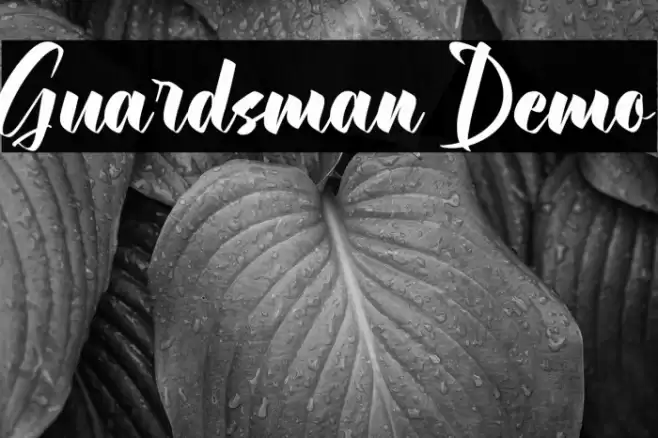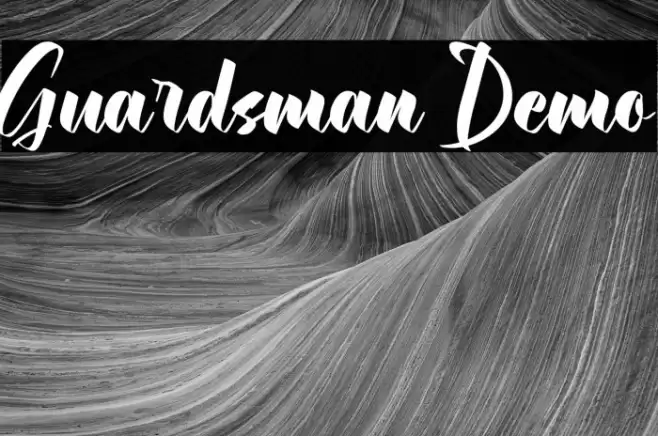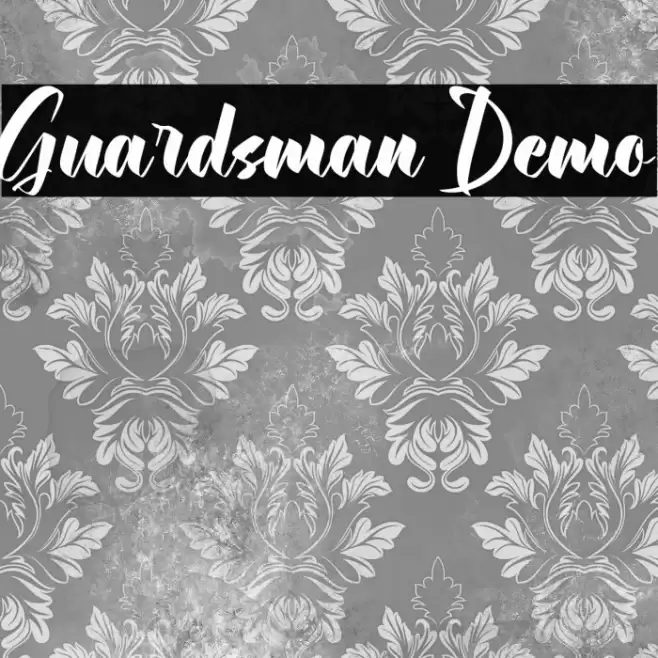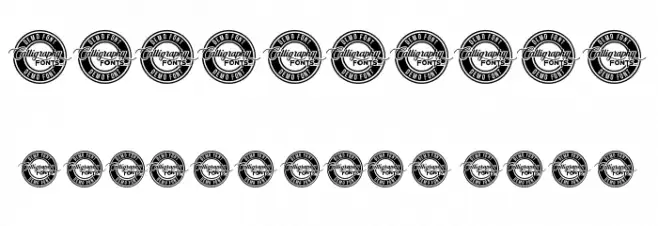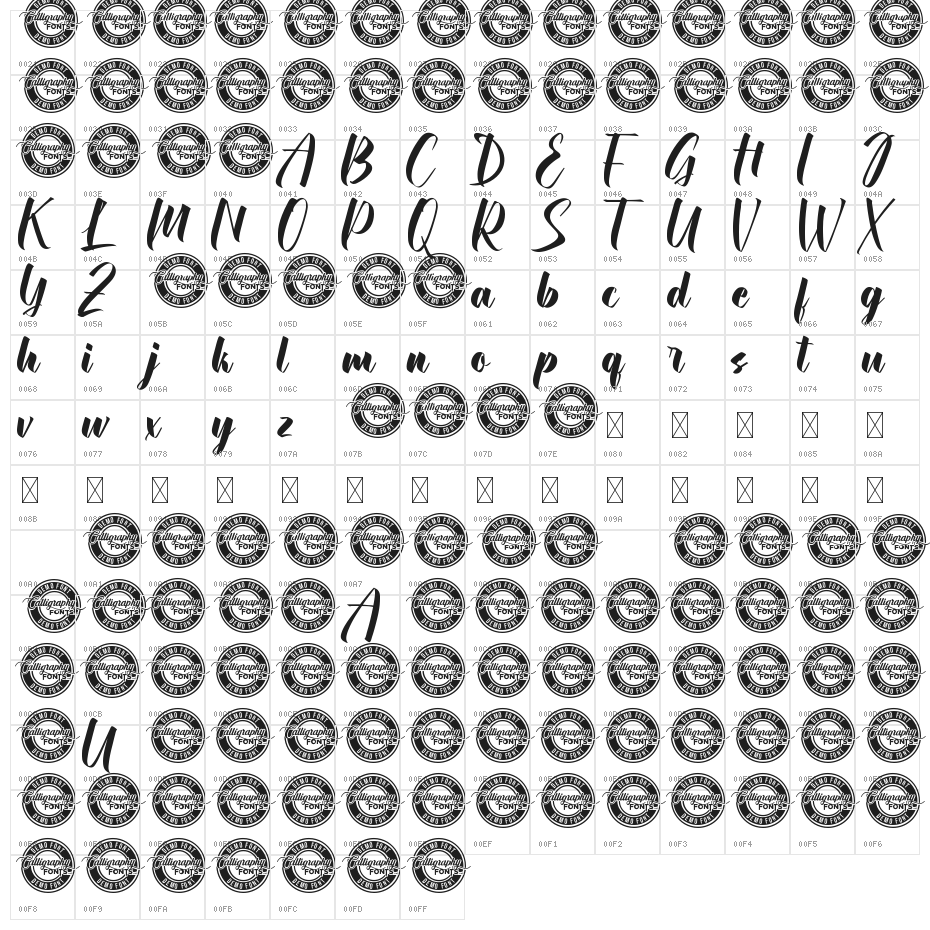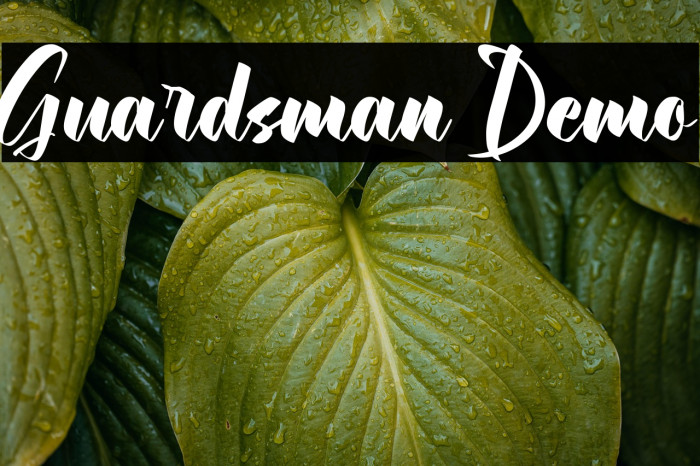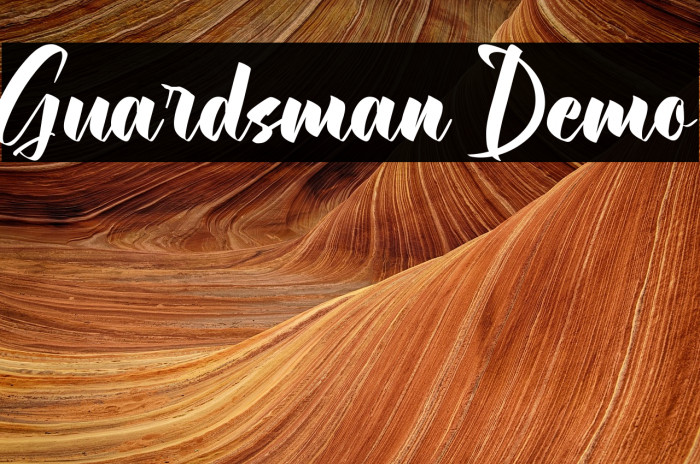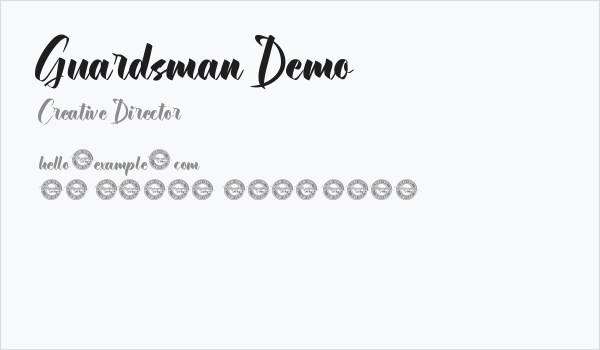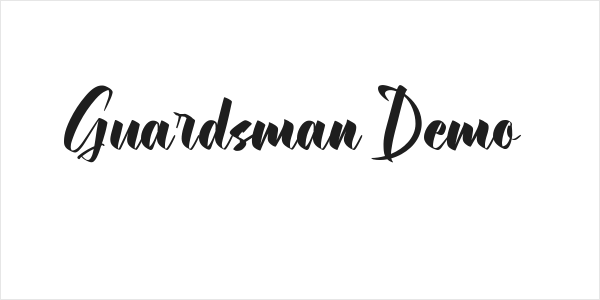
Guardsman Demo Font
Guardsman Demo Description
This font features a bold and expressive script style, characterized by its fluid, cursive strokes and dynamic letterforms. The uppercase letters are particularly striking, with sweeping curves and a sense of movement that adds a lively, artistic flair. The lowercase letters maintain this energetic style, offering a cohesive look throughout. The font's thick strokes and high contrast between thick and thin lines enhance its dramatic appearance, making it ideal for attention-grabbing designs. Its handwritten quality gives it a personal and creative touch, suitable for projects that require a humanistic and approachable feel.
A bold, expressive script font with dynamic, cursive strokes and high contrast from Regular fonts.
- Proposed Projects: Ideal for branding, invitations, greeting cards, and any design that requires a personal, artistic touch.
- Use Case: Logos, Headlines, Invitations